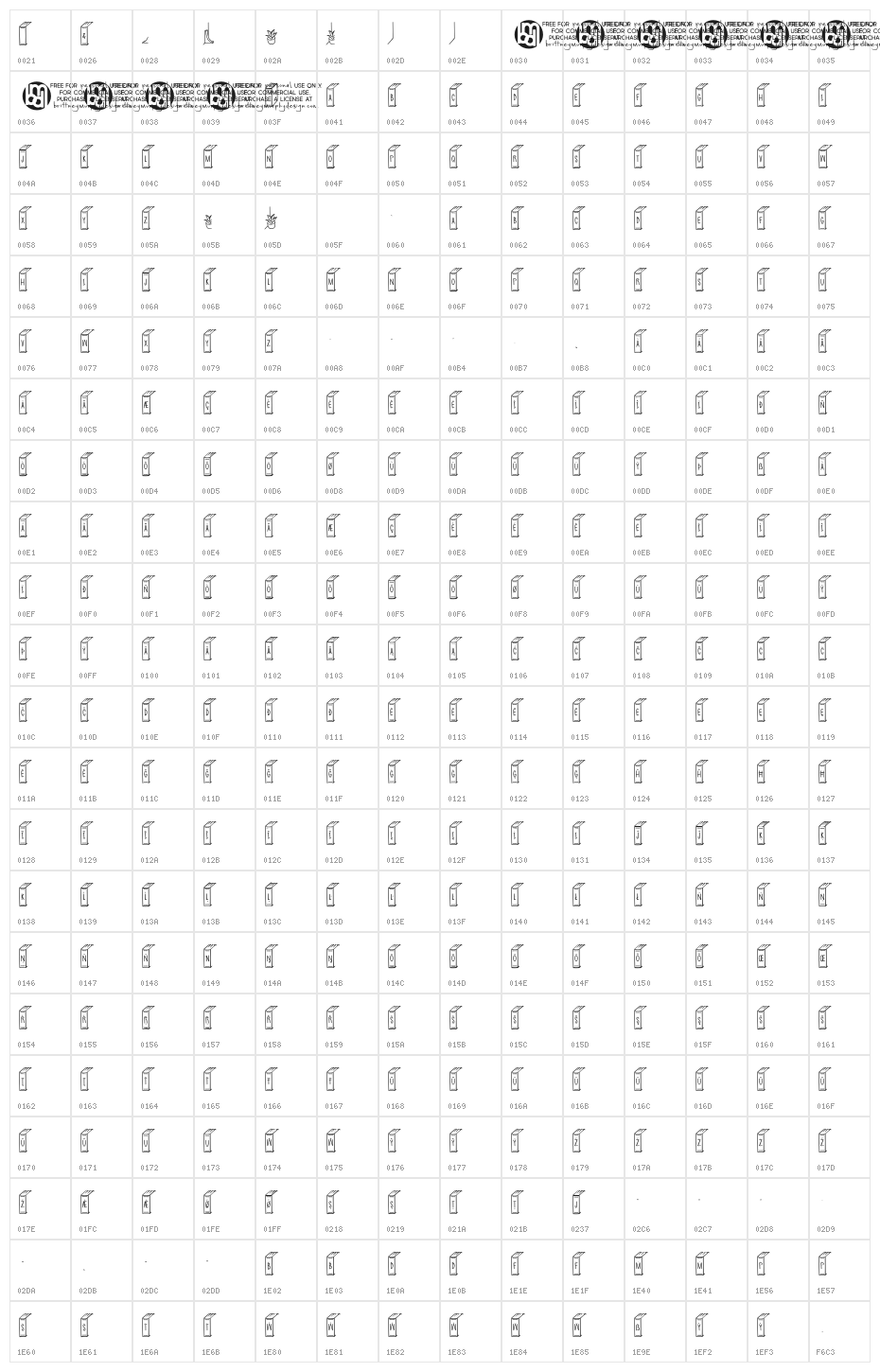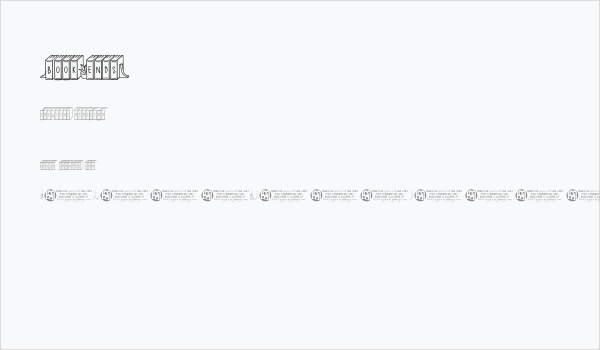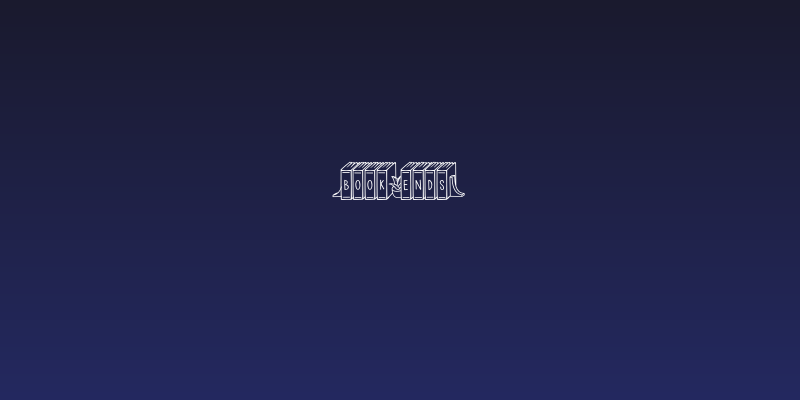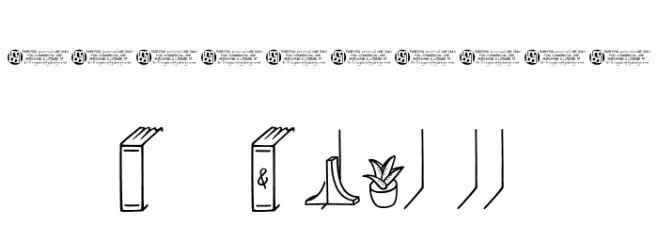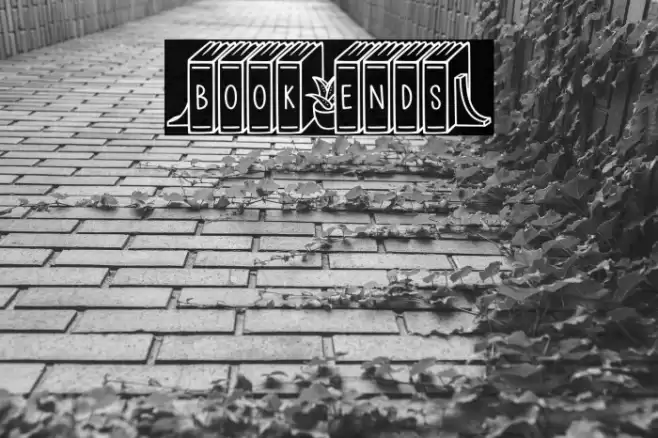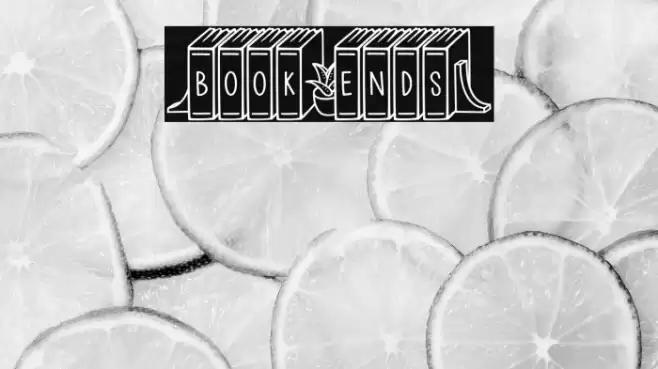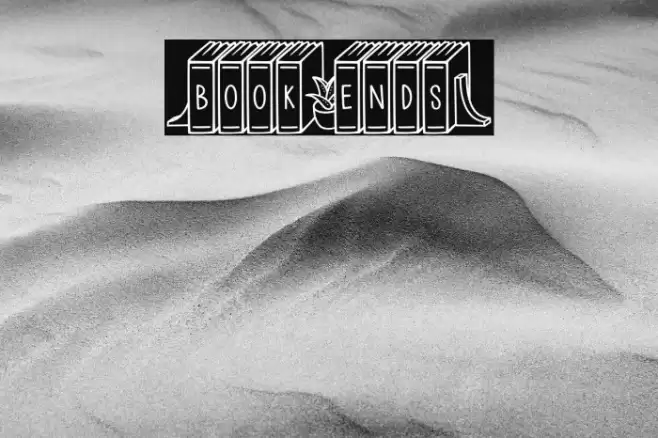
(Book+Ends) Font
(Book+Ends) Description
This font features a unique design where each letter is encased within the outline of a book, giving the appearance of a row of books on a shelf. The letters are uppercase and have a hand-drawn, sketch-like quality, adding a playful and creative touch. The font is highly decorative, making it ideal for projects that require a literary or educational theme. The overall style is whimsical and imaginative, perfect for capturing attention and adding character to any design. The spacing between characters is consistent, with each letter neatly enclosed within its book outline, ensuring readability while maintaining its distinctive style.
| Overall Style | Whimsical |
| Proposed Projects | Ideal for book covers, educational materials, library signage, and creative projects with a literary theme. |